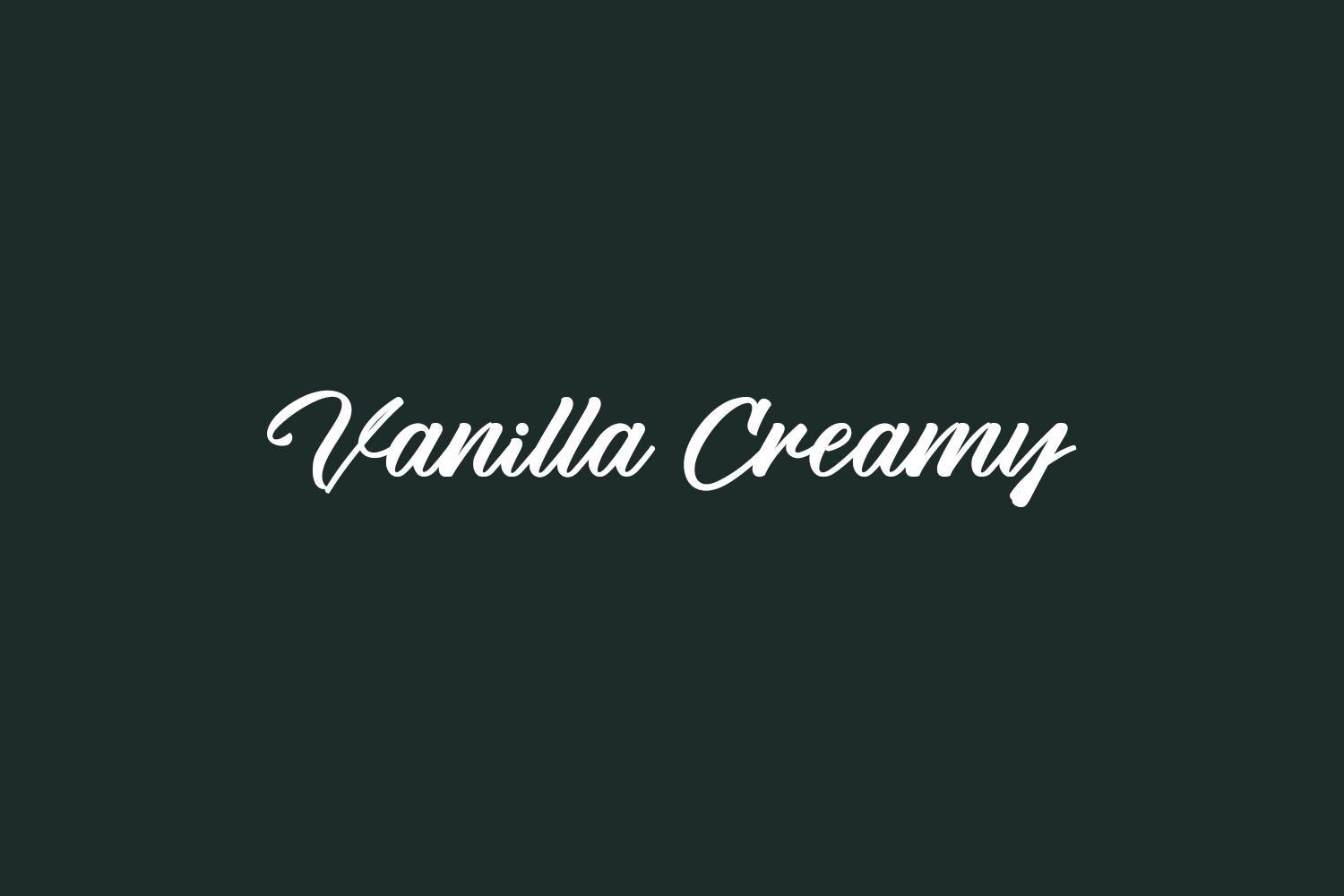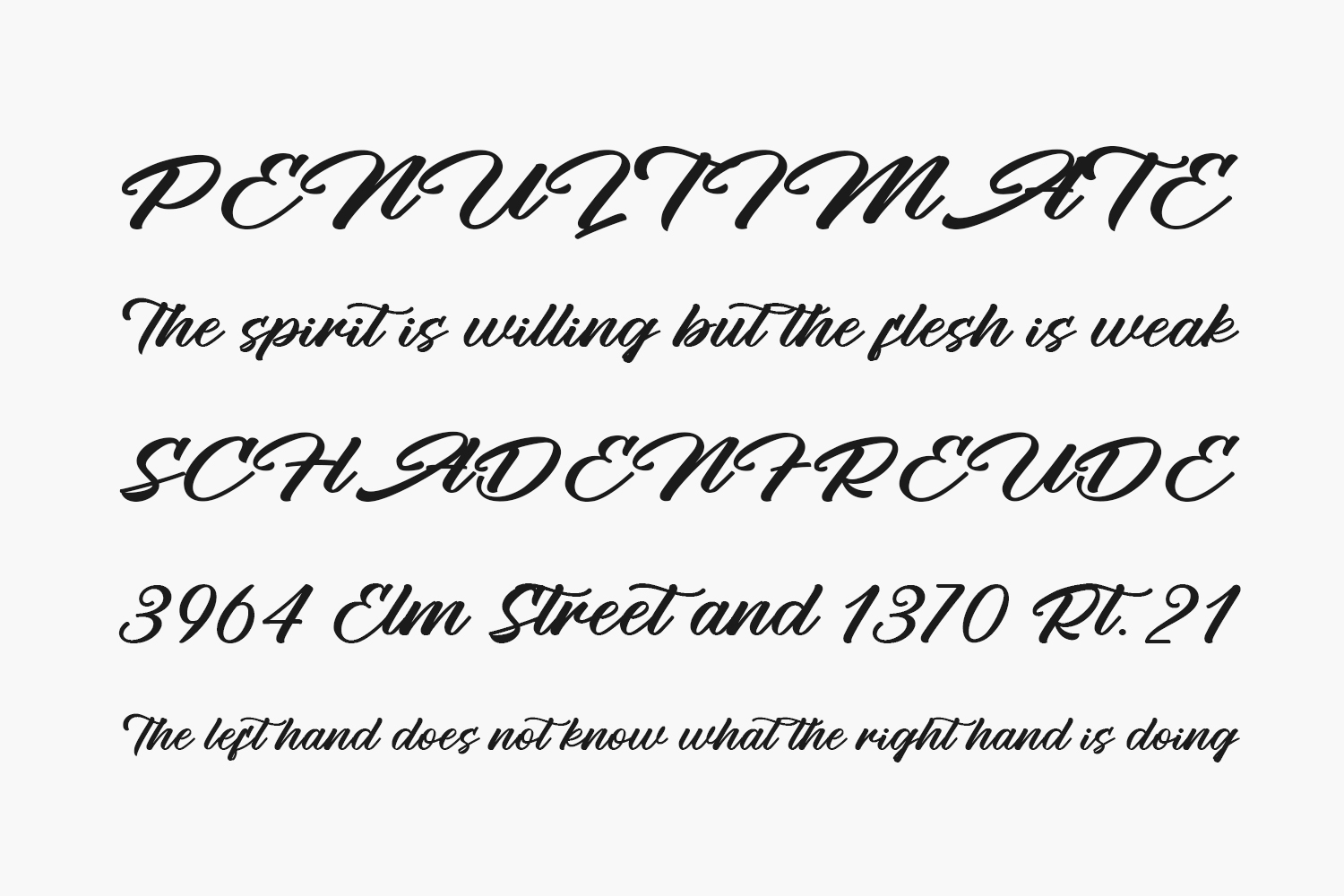
Vanilla Creamy Free Font feels equally charming and elegant. It looks stunning on wedding invitations, thank you cards, quotes, greeting cards, logos, business cards and every other design which needs a handwritten touch.